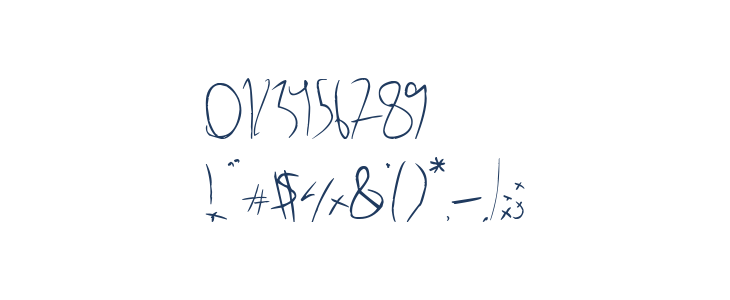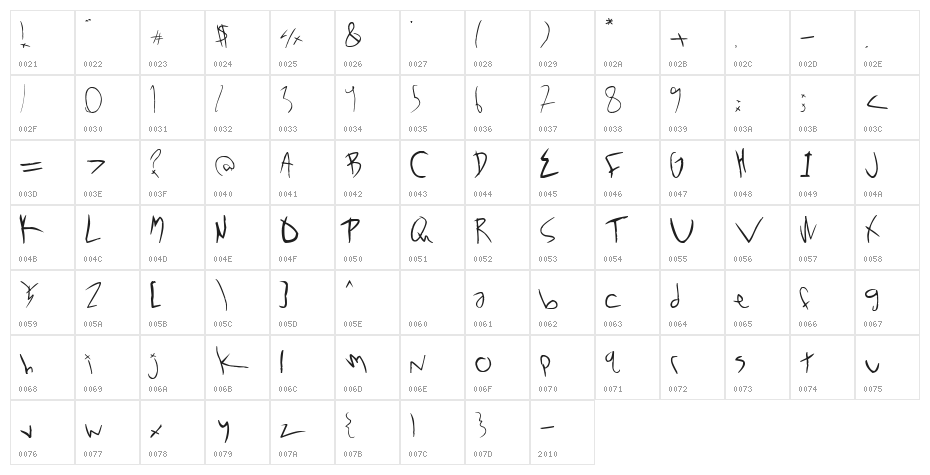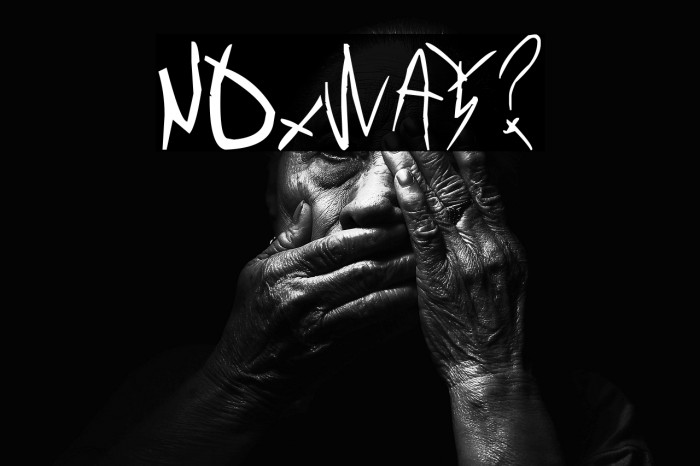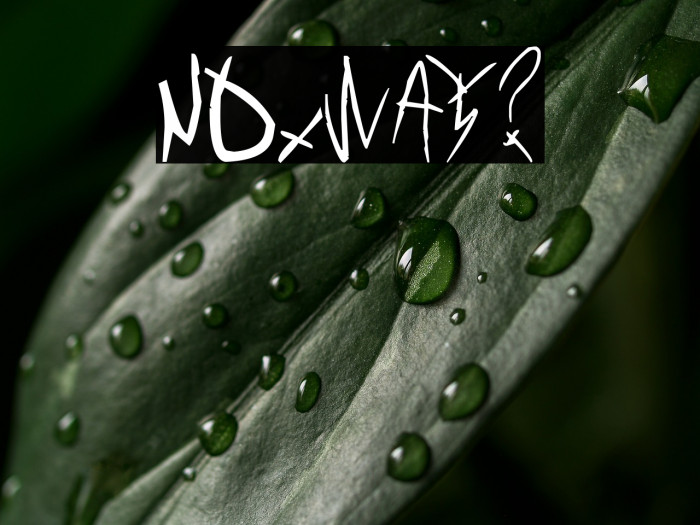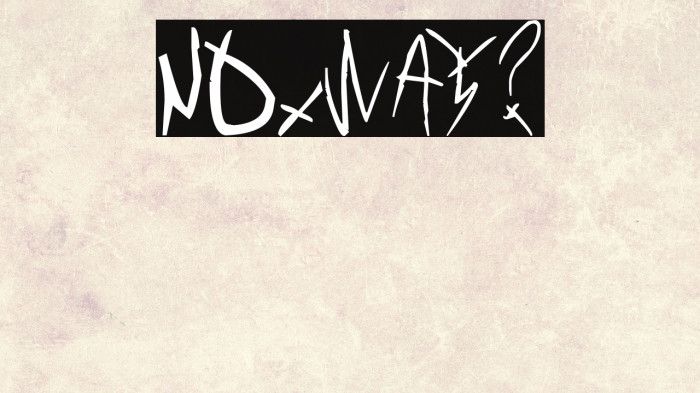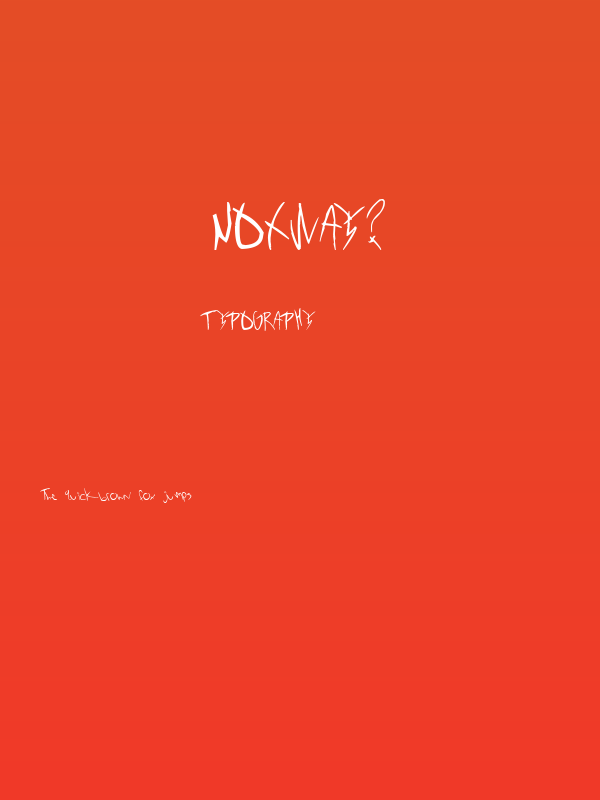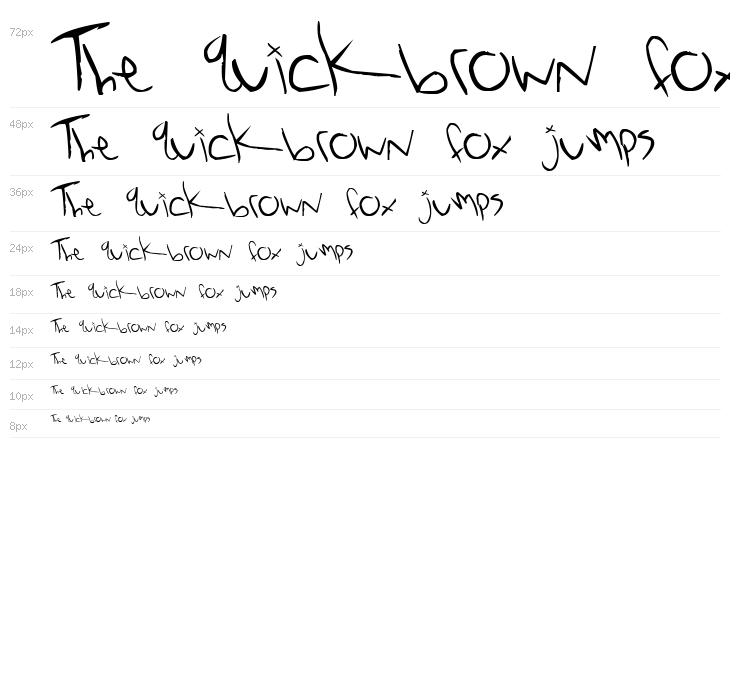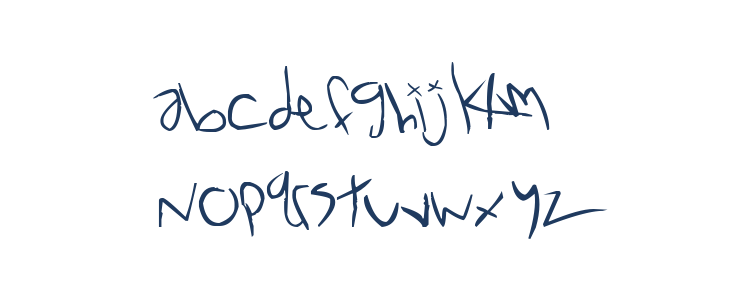
NOxWAY? Font
NOxWAY? Description
This font features a highly expressive and dynamic style, characterized by its sharp, angular strokes and irregular forms. The letters exhibit a hand-drawn quality, with varying line thicknesses that create a sense of movement and energy. The uppercase and lowercase letters maintain a consistent aesthetic, with exaggerated curves and pointed edges that give the font a rebellious and edgy feel. The numbers and special characters follow the same design principles, ensuring a cohesive look across all glyphs. This font is ideal for projects that require a bold, unconventional appearance.
| Overall Style | Modern, Edgy |
| Proposed Projects | Album covers, graffiti art, edgy branding, posters, and creative advertising. |